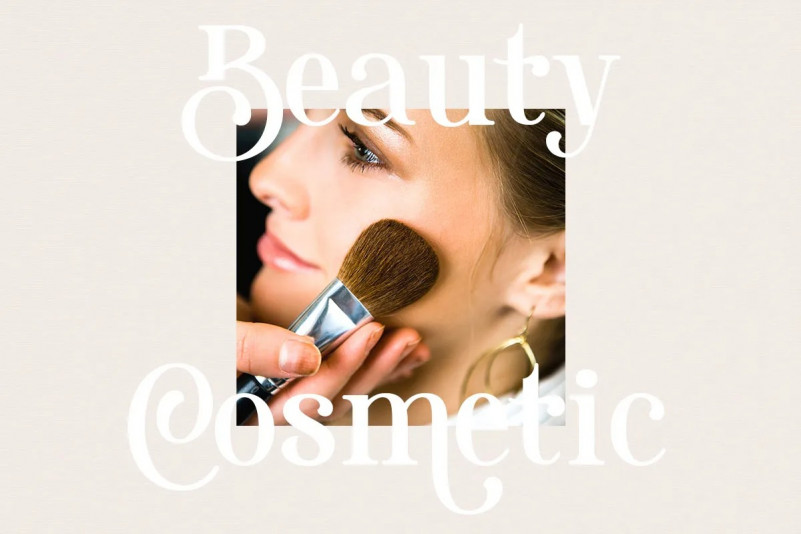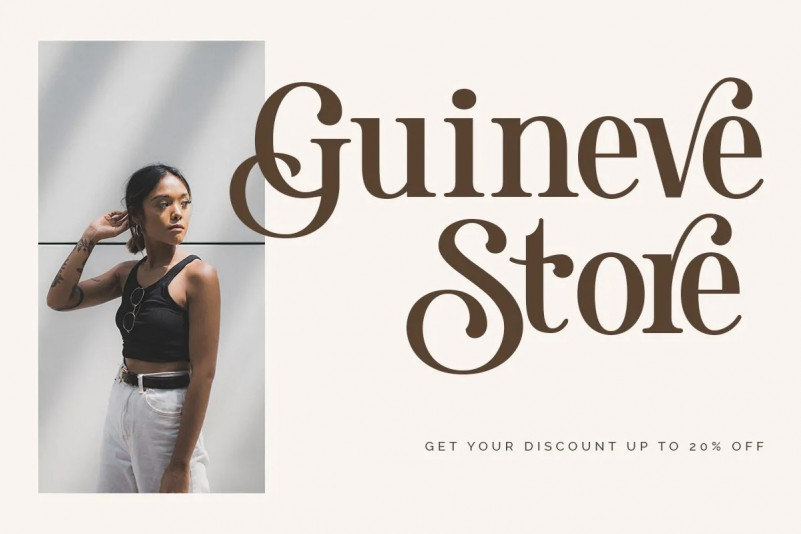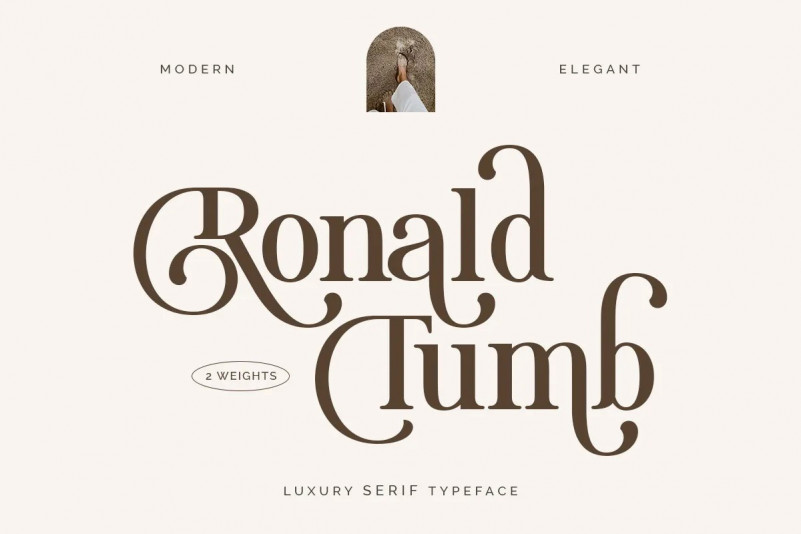
Ronald Tumb Serif Font
Ronald Tumb Serif Vintage Font, This font is perfect for stickers, retro projects, craft projects, shirts, svg designs, procreate designs, branding, blogs, logos, invitations and more!